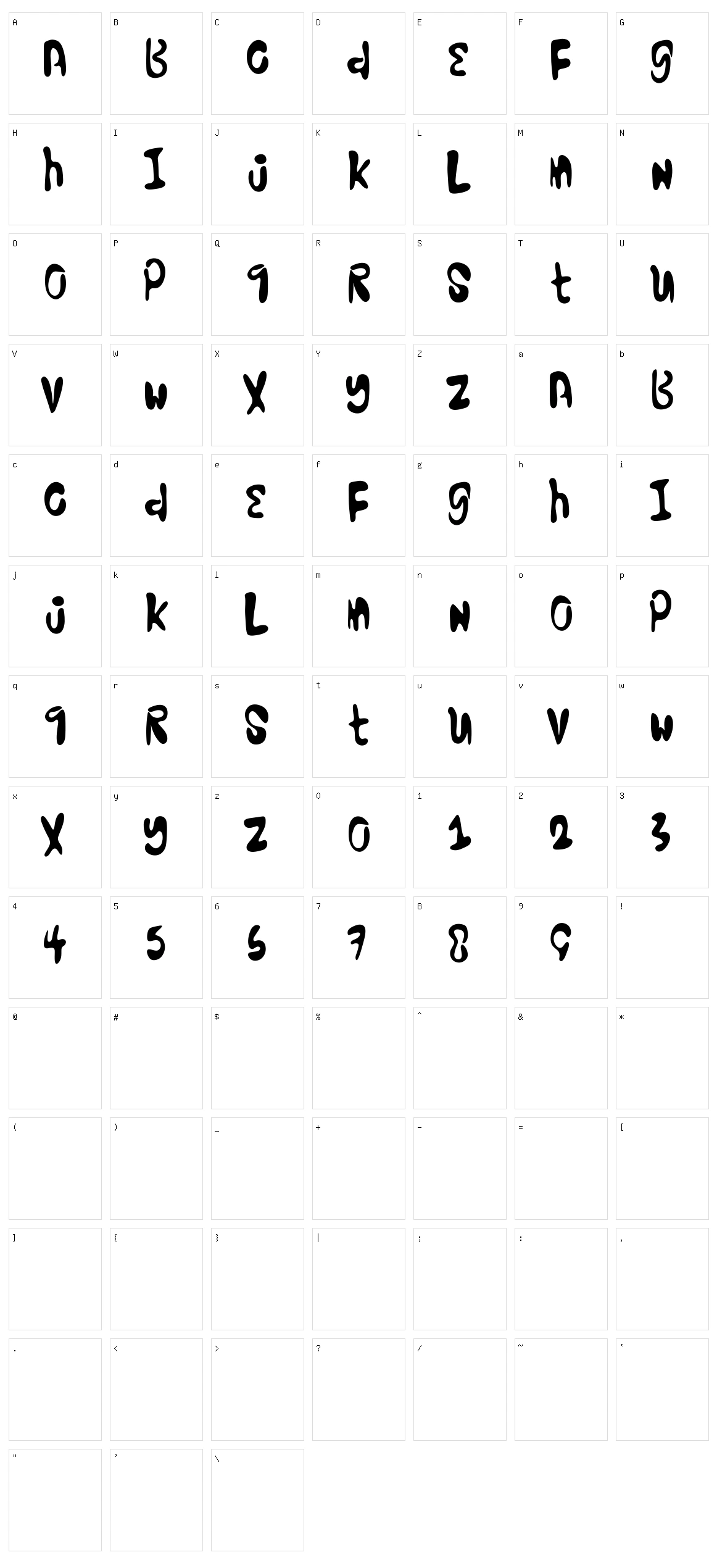
The free font Excellent Stencil is carefully designed by Xerographer Fonts, showcasing a thoughtful balance of creativity and usability and falls under the Cartoon font style. When you download the ZIP file, it contains only 9.82 KB of font files, making it lightweight and quick to download. Please review the license details below to understand permitted usage and distribution rights. If license information is not available, we recommend using this font for personal projects only or contacting the author directly for commercial usage permissions.